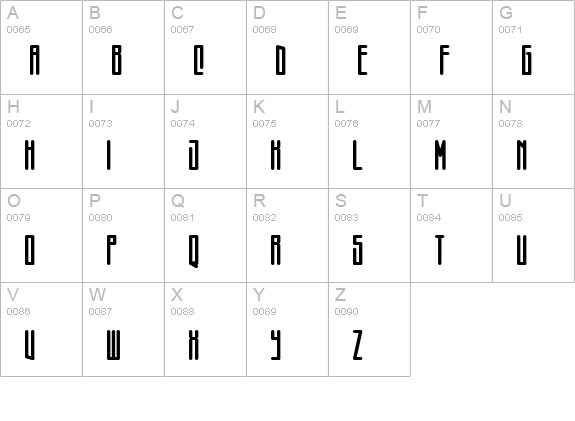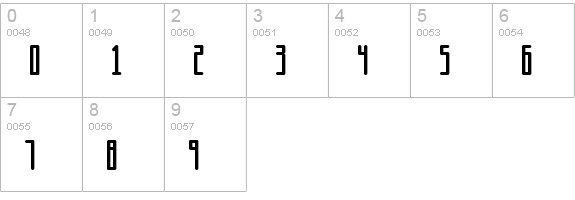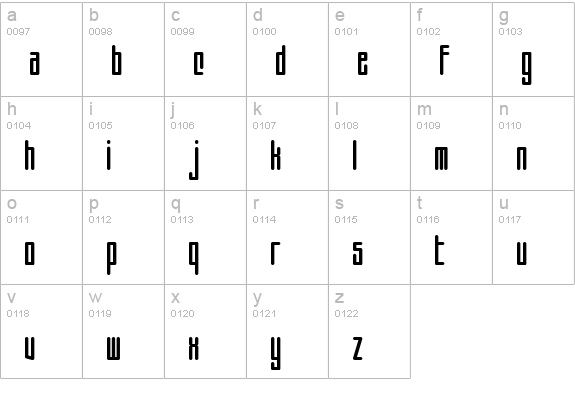
Introducing Squareworm font, a stunning typeface that combines simplicity with boldness. This versatile font is perfect for various design projects, from modern logos to eye-catching headlines. Squareworm features clean lines and geometric shapes, giving it a contemporary and stylish look. Its unique design sets it apart from other fonts, making it an excellent choice for those who want to make a statement. What makes Squareworm font even more appealing is that it is free! Yes, you read that right. This incredible font can be downloaded freely at FontsMarket.com, allowing you to enhance your creative projects without breaking the bank. Whether you're a graphic designer, web developer, or simply someone who appreciates beautiful typography, Squareworm font will definitely catch your eye. Its versatility and modern appeal make it a must-have in your font collection. So why wait? Head over to FontsMarket.com and download Squareworm font for free today!